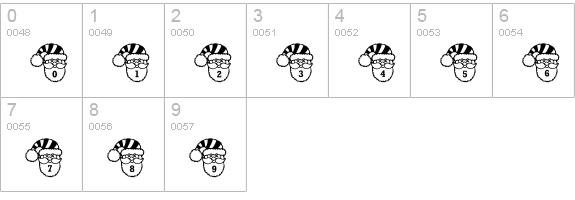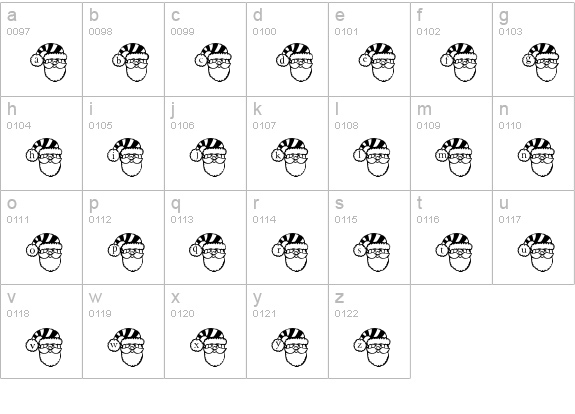
Pf_santa_smiles Font Details
Pf_santa_smiles is a delightful and whimsical font that embodies the spirit of the holiday season. With its playful curves and charming details, this font brings a sense of joy and merriment to any project it is used in. Designed with Santa Claus in mind, Pf_santa_smiles captures the essence of the jolly old man himself. Each letter is crafted with care, featuring a unique Santa hat accent that adds a touch of festive cheer. The rounded corners and smooth lines give this font a warm and approachable feel, making it perfect for conveying messages of happiness and celebration. What makes Pf_santa_smiles even more special is that it is available for free download at FontsMarket.com. This means that you can easily add this delightful font to your collection without any cost. Whether you're creating holiday greeting cards, designing party invitations, or crafting festive banners, Pf_santa_smiles will certainly make your projects stand out. So why wait? Spread the holiday cheer with Pf_santa_smiles and let your creativity shine. Download this font for free at FontsMarket.com and bring a touch of Santa's magic to your designs today!